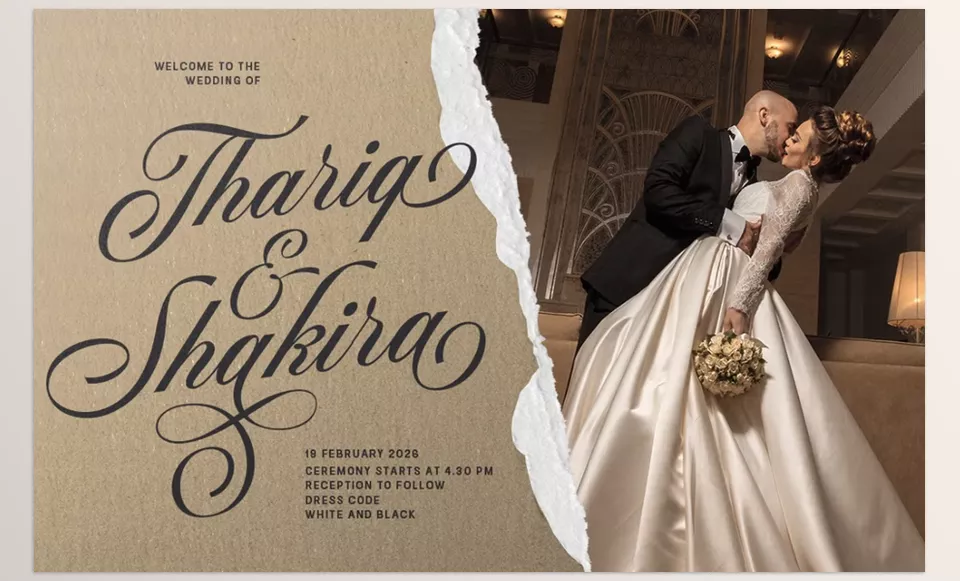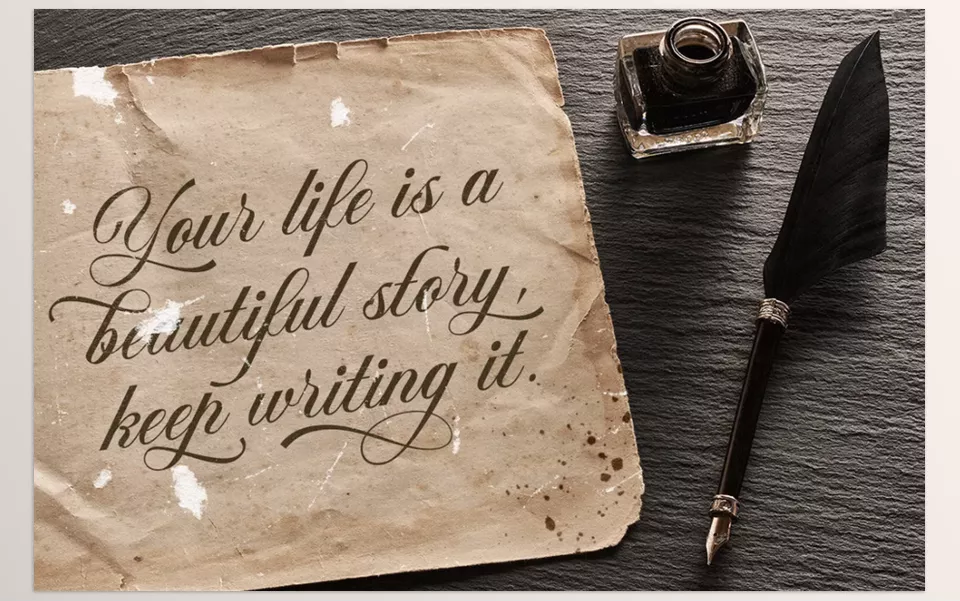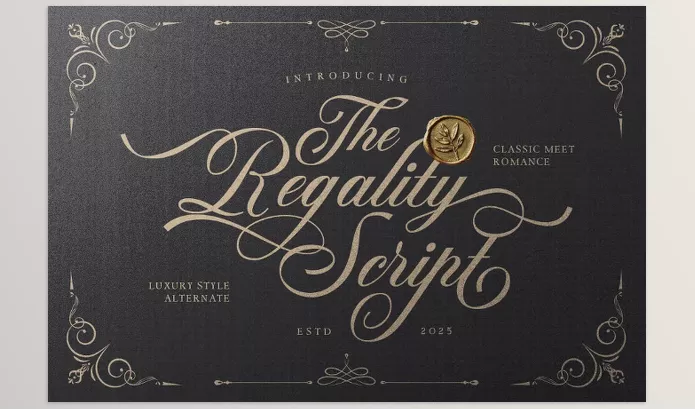
Regality Luxury Romance Script is the font for those who want romance as well as elegance to be added to their designs. With its stylish alternates and versatile design, wedding invitations, branding, and even sweet quotes to be carved with ease.
Bale Type – Regality Luxury Romance Script Features
• Chic Alternates: Allows you to change the style to customize your text.
• Modern Elegance: Deepens the contemporary approach of your projects.
• Versatile Use: Good for quotes, branding, or even designing invitations.
• Multilingual Support: Supports international designs in different languages.
• Romantic touch: Infuses romance into every creation.
Preview Regality Luxury Romance Script
Image 1: Make your special day unforgettable with sophisticated and elegant love invites.
Regality Luxury Romance Script - Make your special day unforgettable with sophisticated and elegant love invites.
Image 2: Brand with charm and modern romance and capture the hearts of many.
Regality Luxury Romance Script - Brand with charm and modern romance and capture the hearts of many.